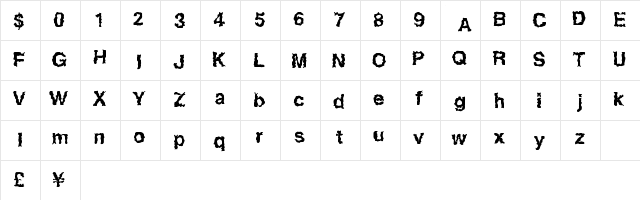
EasyHorror Regular
| Foundry | Xerographer Fonts |
| Designer | Xerographer Fonts Max Infeld |
Design Context for EasyHorror Typeface
EasyHorror carries an unsettling edge — its distorted letterforms are built to unsettle, perfectly suited to horror, Halloween, and dark creative work.
Perfect for anything that needs to unsettle — game titles, horror branding, and macabre invitations.
Font Pairing: Pair with a clean neutral sans-serif for body copy to let EasyHorror's character lead without overwhelming the composition.
Pro Tip: Use EasyHorror at larger display sizes for maximum impact. Consider generous tracking to let the disturbing character of each letterform breathe.